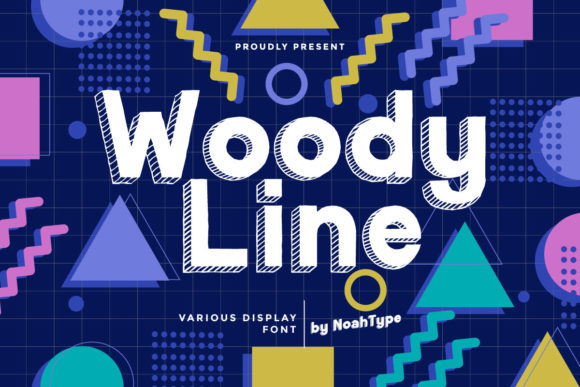
Introducing Woody Line Font - A Whimsical Masterpiece for Captivating Creations!
In a world teeming with digital expression, fonts hold the power to transform ordinary words into extraordinary visual experiences. Meet Woody Line Font, a comic display font that's anything but ordinary. This playful and casual font is an artist's dream, crafted meticulously by NoahType to ignite your creativity like never before.
Step into a world where letters dance and words come alive. Woody Line Font is a symphony of curved lines and playful shapes, each character bursting with personality. Its bold strokes and quirky charm make it the perfect choice for injecting fun and vibrancy into your designs.
Picture this: a captivating comic book where the characters leap off the page, their dialogue popping with energy. Or imagine an event flyer that radiates joy, inviting everyone to an unforgettable experience. Unleash your imagination and explore the endless possibilities that await you with Woody Line Font.
But Woody Line Font is not just a pretty face; it's also a versatile workhorse that can handle a wide range of projects. From eye-catching invitations that make hearts flutter to mouthwatering menus that tantalize taste buds, this font is up to any challenge.
With Woody Line Font, every project becomes a canvas for your creativity. It's the ultimate tool for expressing your unique style and capturing the attention of your audience. Elevate your designs, make a statement, and turn heads wherever your words go.